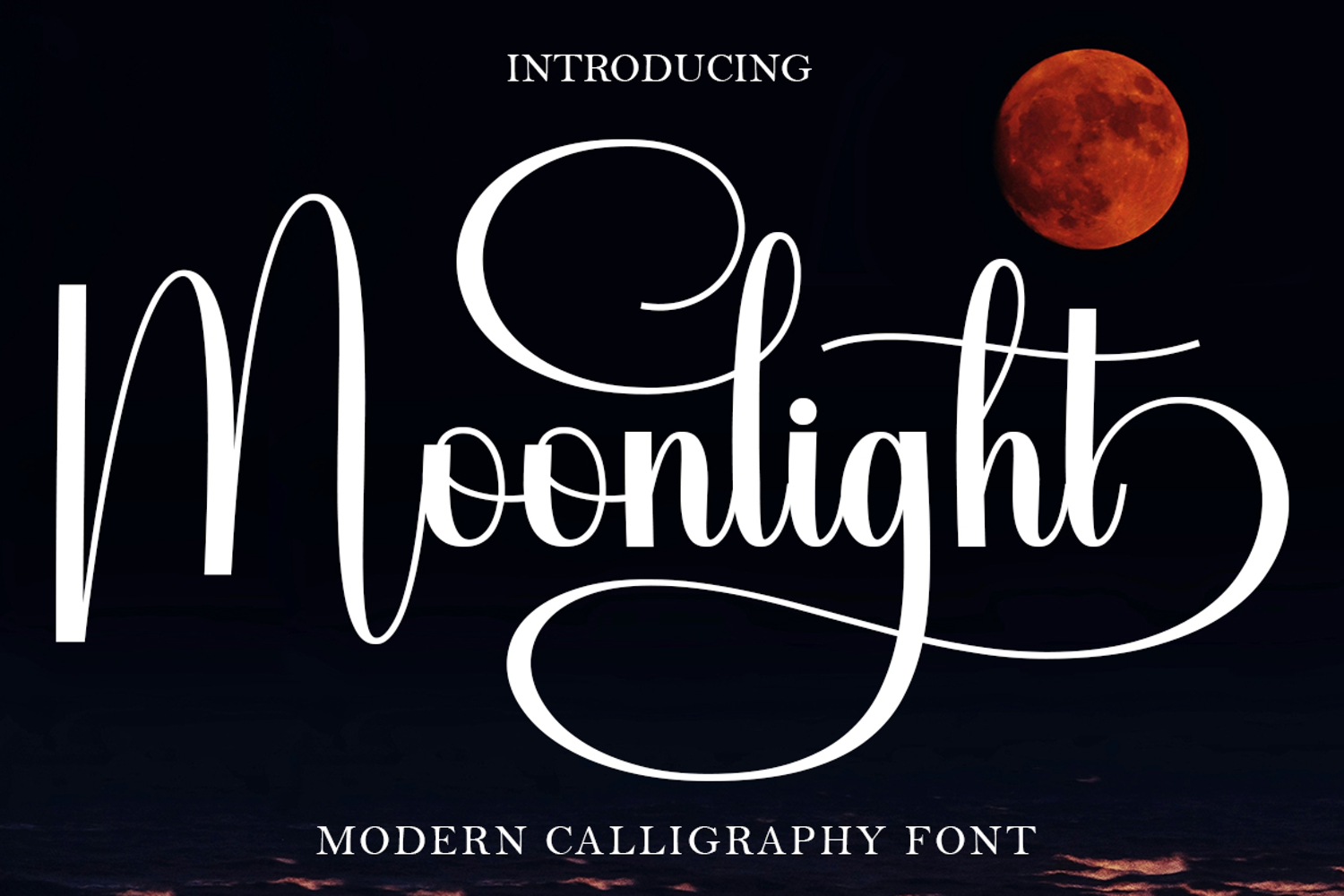
Moonlight is a font that radiates warmth and sophistication. Its elegant curves and delicate, feminine flair bring a refined charm to any design project. Perfect for branding, headlines, wedding invitations, signage, logos, labels, and beyond, this font transforms your creations into stunning visual statements.